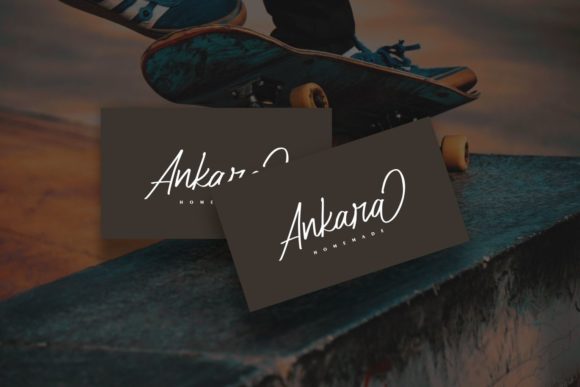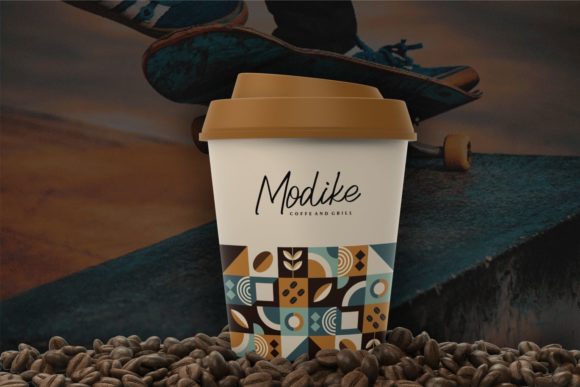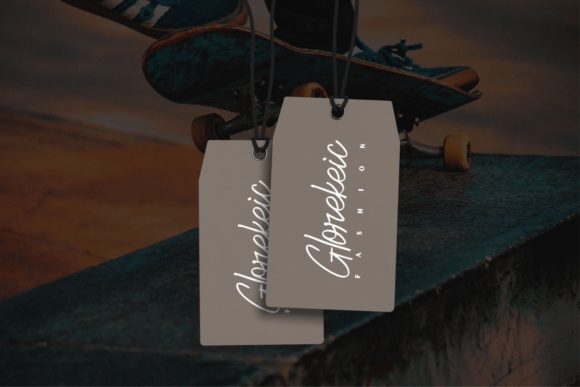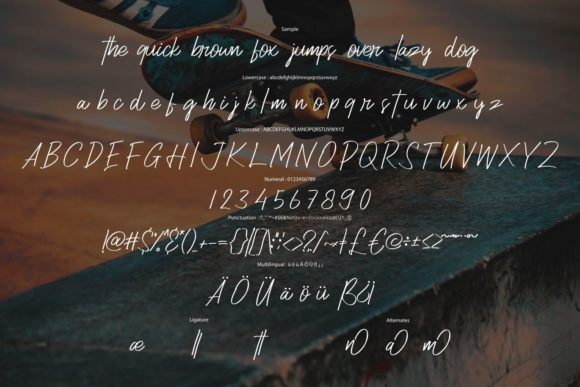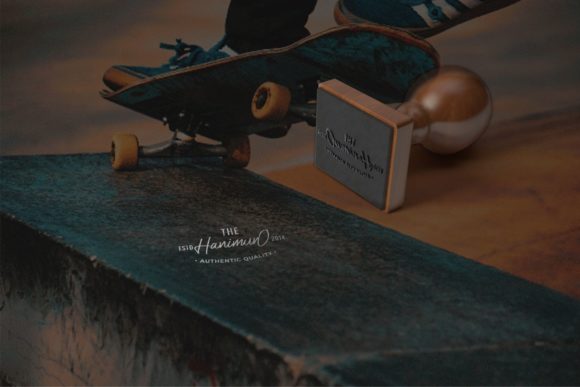
Introducing a font that seamlessly blends charm and elegance, creating a stunning visual experience for a myriad of design projects. This versatile typeface is not just a font; it’s an embodiment of sophistication, making it perfect for wedding invitations, thank you cards, quotes, greeting cards, logos, business cards, and any design that craves a touch of handwritten refinement.
The font’s enchanting allure lies in its ability to evoke a sense of charm that captures attention and its elegant strokes that exude a timeless quality. It effortlessly transforms wedding invitations into pieces of art, setting the tone for the most special day in a couple’s life. The graceful curves and meticulous details lend an air of sophistication to every letter, creating an aesthetic that resonates with elegance.
Thank you cards become expressions of gratitude and warmth when adorned with this font. Its handwritten touch imparts a personal feel, turning simple messages into heartfelt expressions. The font elevates the art of conveying appreciation, making each card a unique and memorable token.
Quotes come to life with a poetic flair, as this font gracefully weaves words into a visual tapestry. Its charm lies not only in the letters themselves but in the spaces between them, creating a harmonious dance that enchants readers. Whether adorning posters or social media graphics, the font transforms mundane words into impactful statements.
Greeting cards take on a new level of sentimentality as the font infuses them with elegance. Birthdays, anniversaries, or celebrations become more memorable when paired with a font that mirrors the warmth of a handwritten note. The intricate details and graceful flow ensure that each card is a work of art.
Logos and business cards benefit from the font’s ability to convey professionalism with a personal touch. It seamlessly merges sophistication with approachability, making a brand or business instantly memorable. The handwritten aesthetic adds a human element, forging connections with clients and customers.
The font’s PUA encoding is the icing on the cake, allowing effortless access to an array of glyphs and swashes. This feature grants designers the freedom to customize and enhance their creations, ensuring a unique and tailored result for every project.
In essence, this font is more than just a typeface; it’s a design companion that transforms ordinary projects into extraordinary works of art. With its charm, elegance, and versatility, it has become an essential tool for designers seeking to infuse their creations with a handwritten touch that transcends the ordinary.